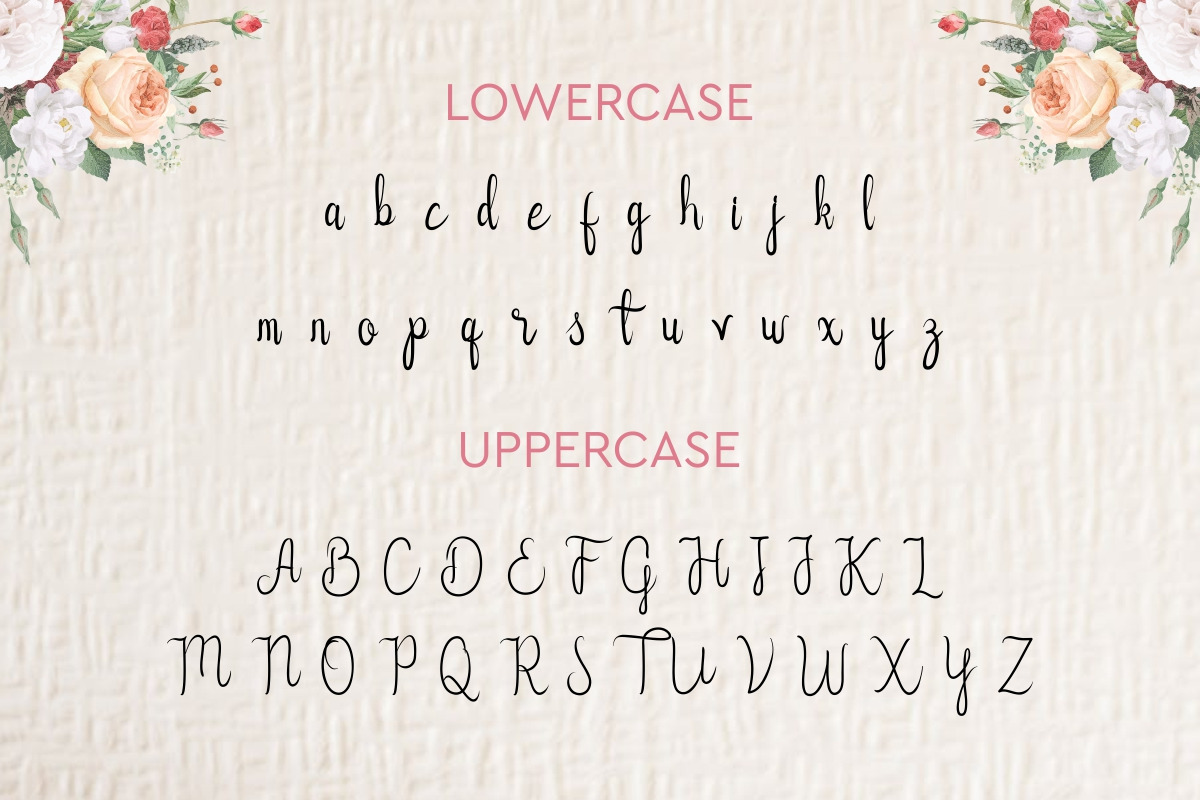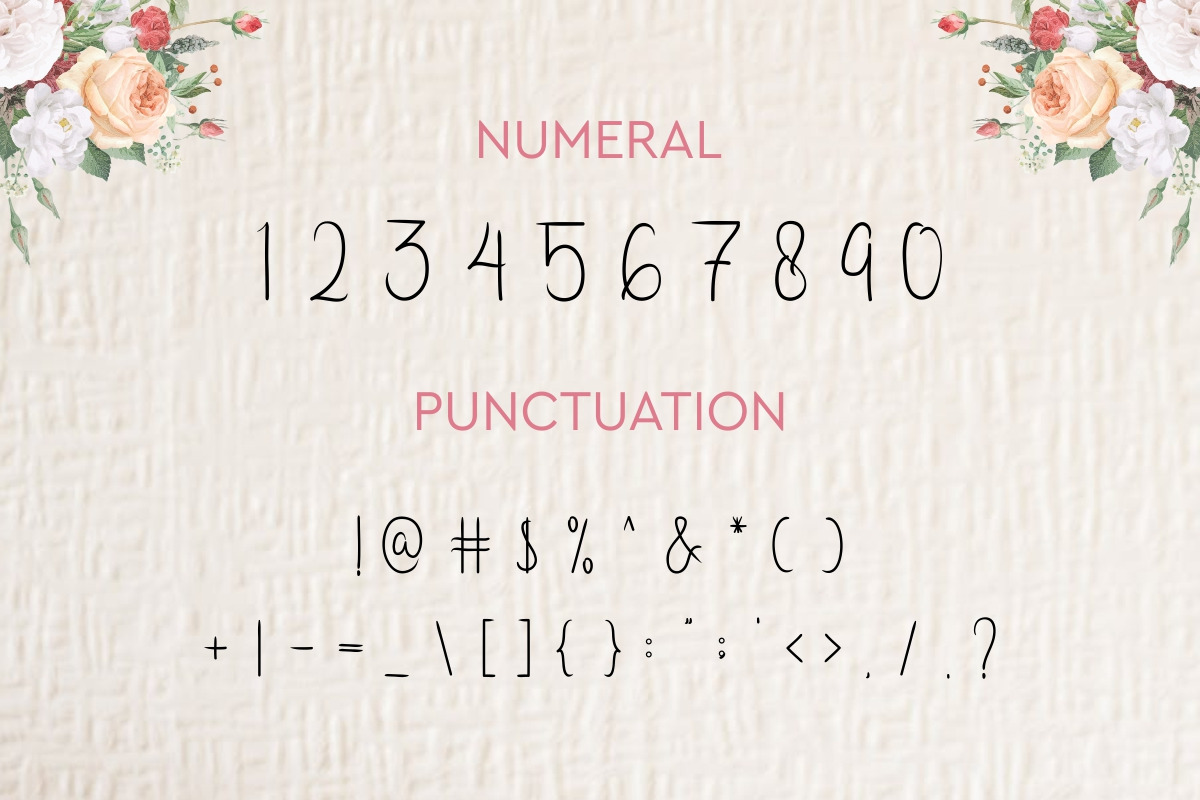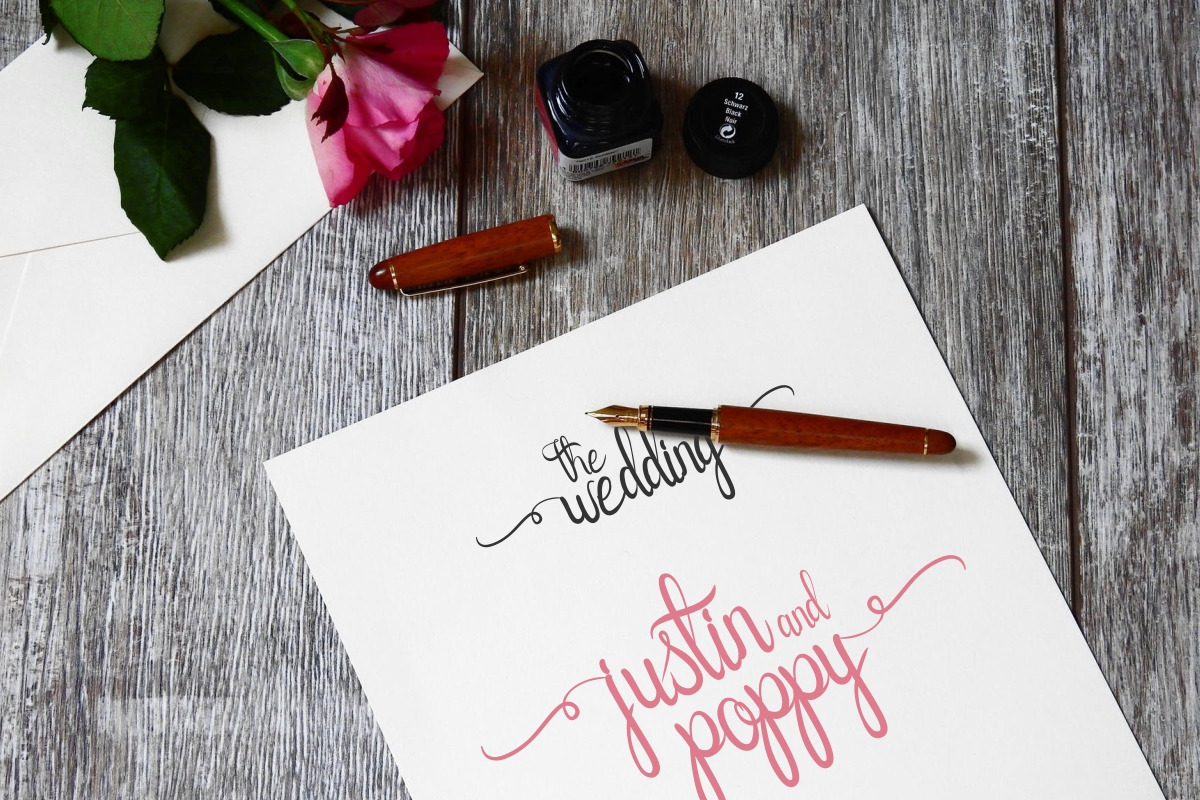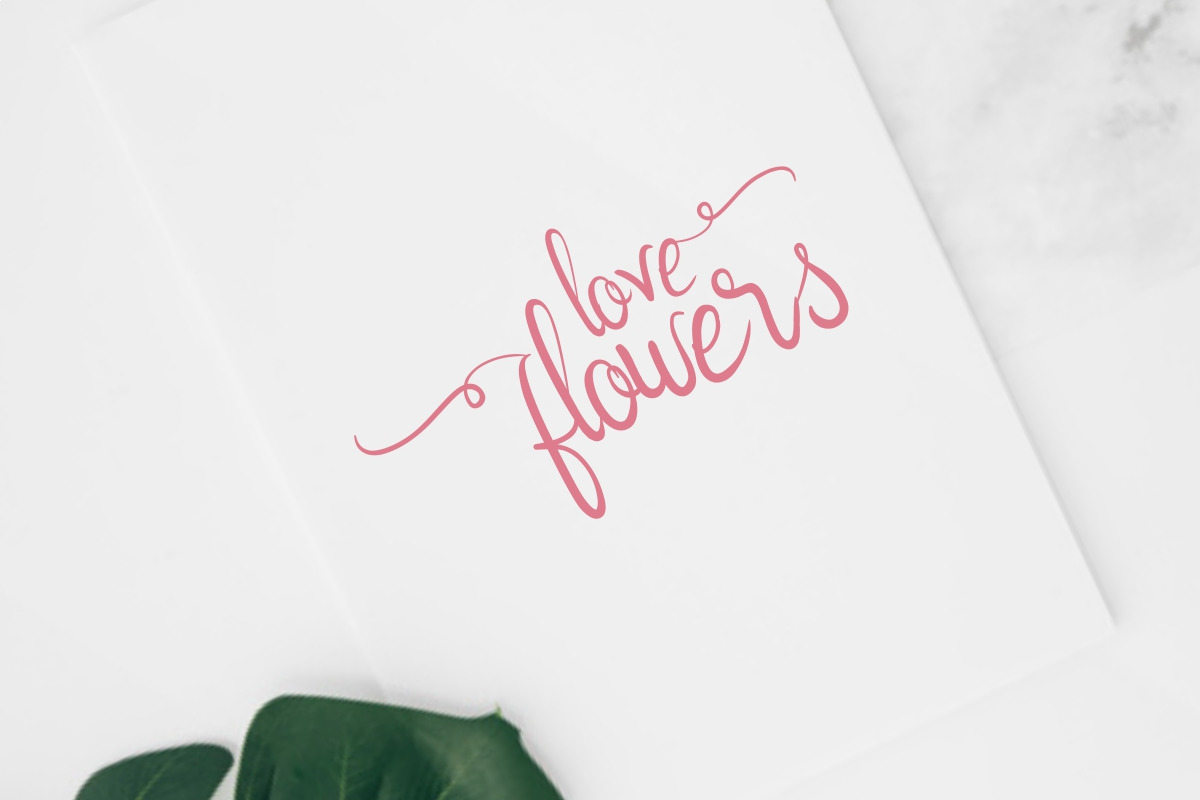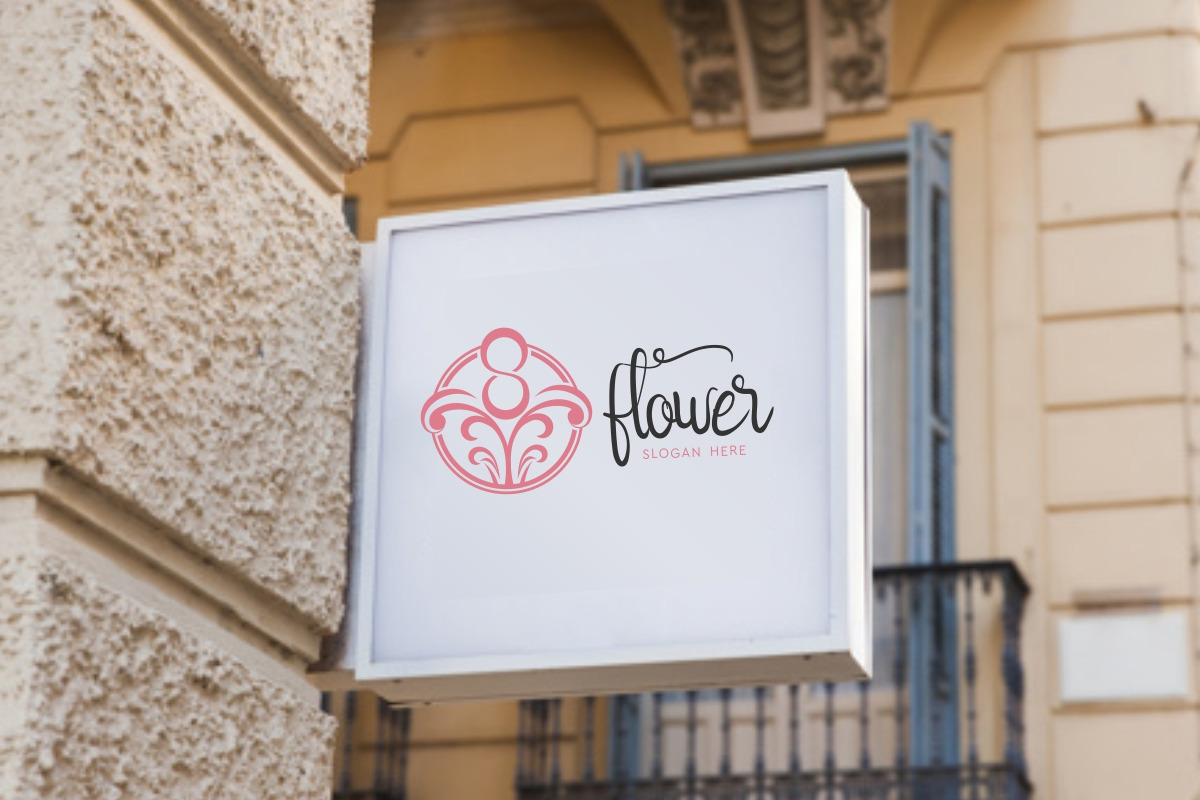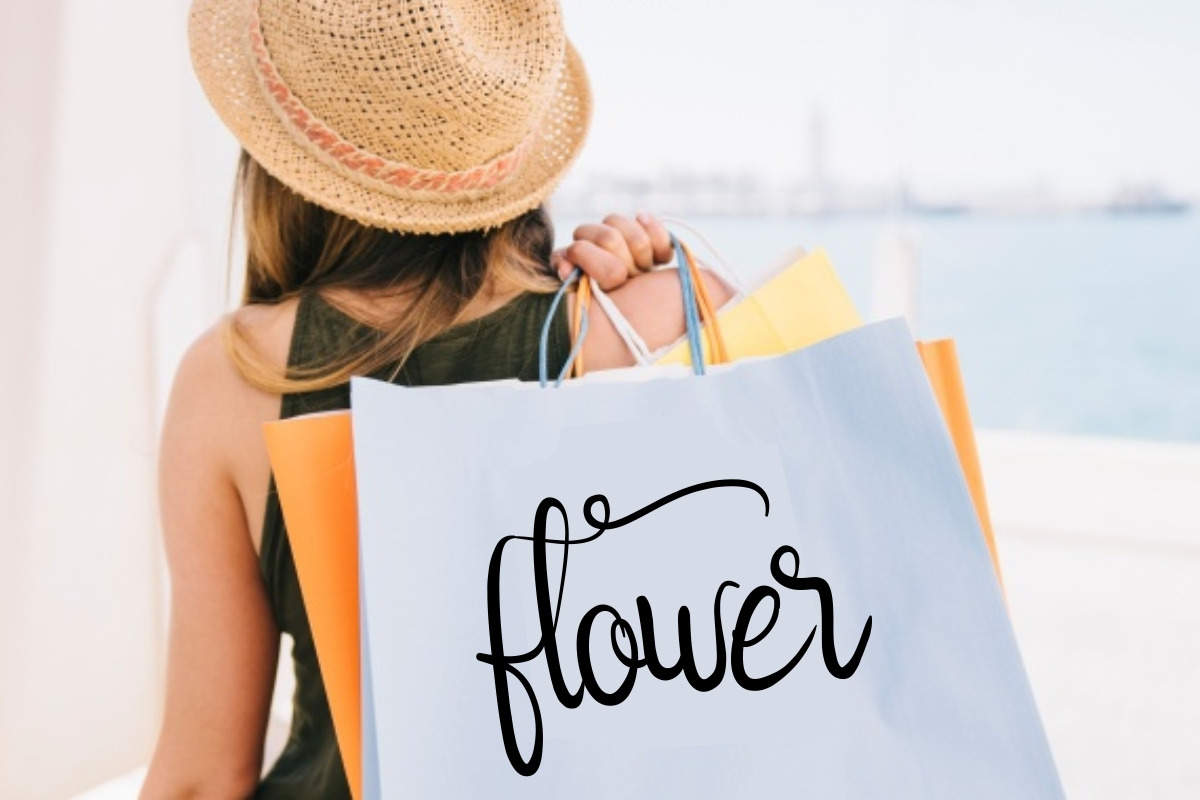
FlowerAdaline Script Font
FlowerAdaline Script is a handmade script font with a handwriting style.
FlowerAdaline Script Font will be great for any projects including : branding, logo, stationery, business card, signage, flyer, brochure etc. Almost all industries will be match for this typeface: wedding, events, real estate, architect, law firm, florist, gardening, makeup artist, travel, hotel, musician etc